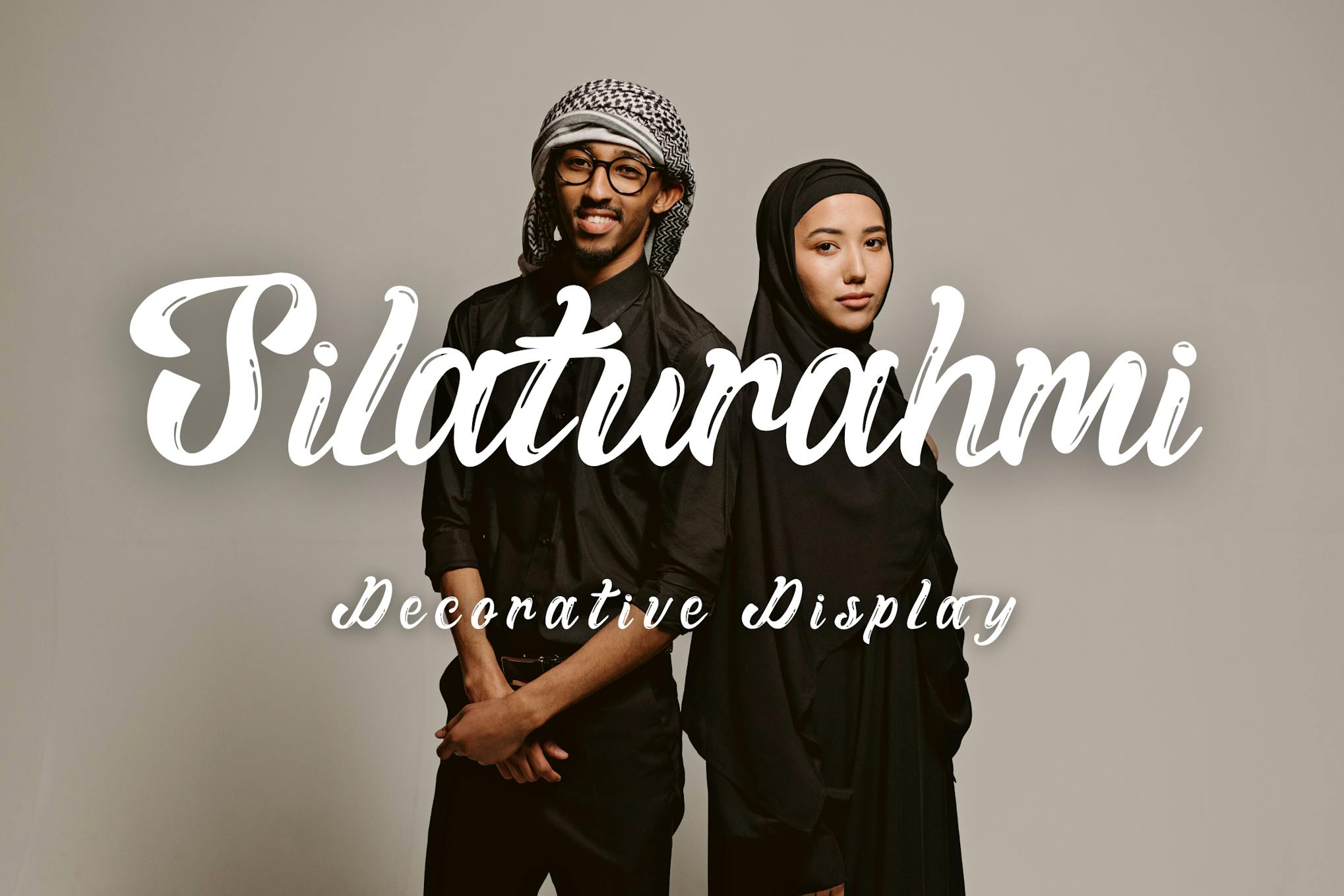
Silaturahmi | Decorative Display Font
Perfect for wedding invitations, greeting cards, logos, packaging, posters, and social media graphics.
The Silaturahmi | Decorative Display Font excites designers with its elegant and ornamental style that brings a unique decorative flair to any creative project.
The Silaturahmi | Decorative Display Font Free Download is a beautifully crafted typeface designed to add sophistication and charm to your designs. Its decorative flourishes and stylish curves make it ideal for projects that require a touch of elegance and artistry. Whether you’re working on wedding invitations, branding, or social media visuals, Silaturahmi enhances your typography with a graceful and ornamental touch.
One of the key features of Silaturahmi | Decorative Display Font is its versatility in decorative uses, fitting perfectly in both formal and creative contexts. It maintains readability while offering an eye-catching style that elevates your designs.
In branding, Silaturahmi conveys elegance, creativity, and refinement. It pairs wonderfully with pastel color schemes, textured backgrounds, and minimalist layouts, helping brands communicate sophistication and charm.
For digital projects, this font enhances website headers, digital invitations, and social media posts with its decorative style. Its unique design ensures your digital content stands out with artistic flair and elegance.